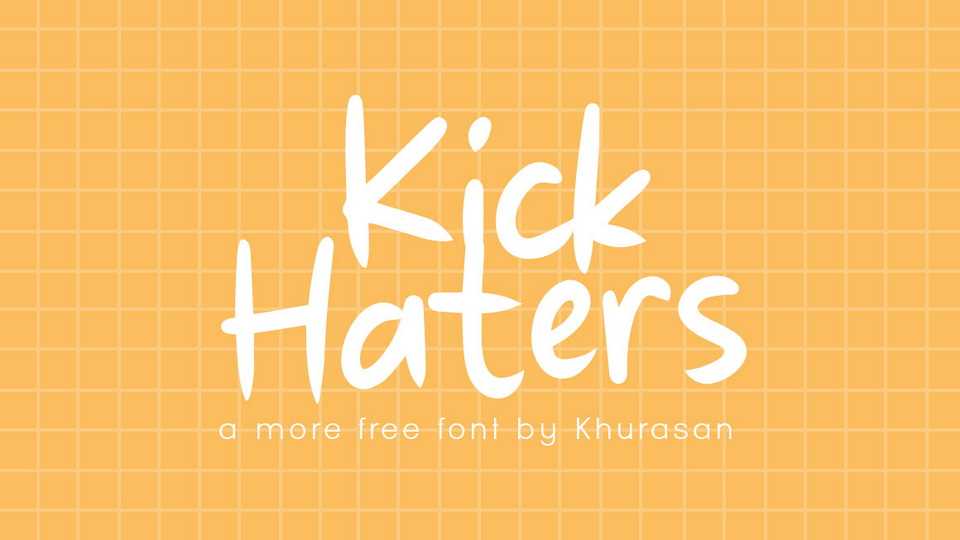
Download Kick Haters font, a simple and casual handwritten typeface. Kick Haters is perfect for comics, posters, logos, magazines, book covers, banners, and many more.